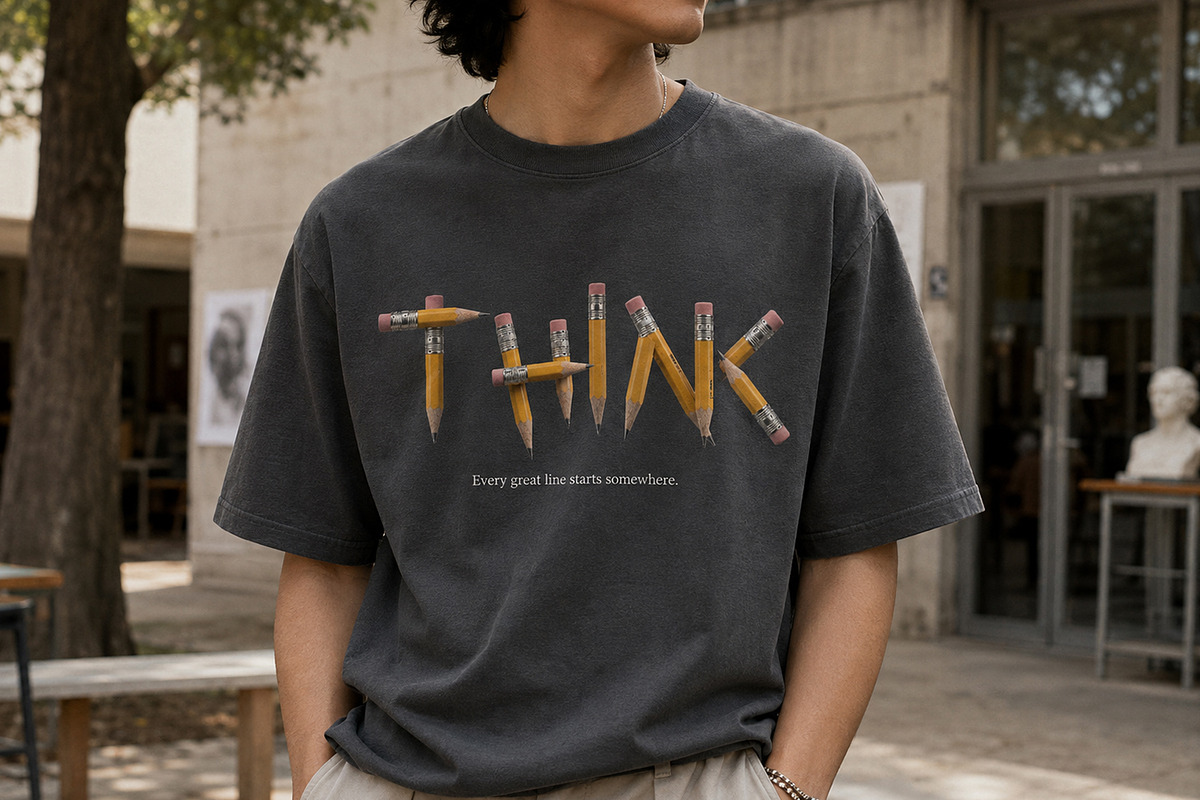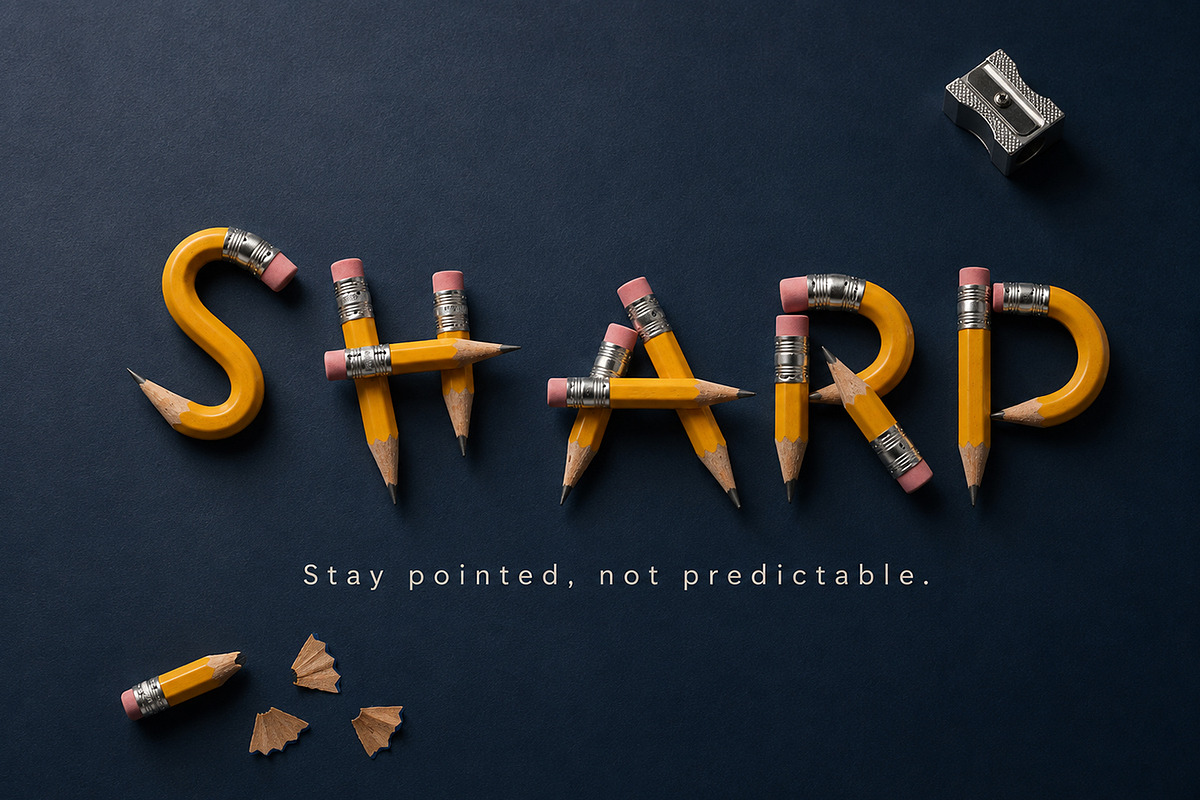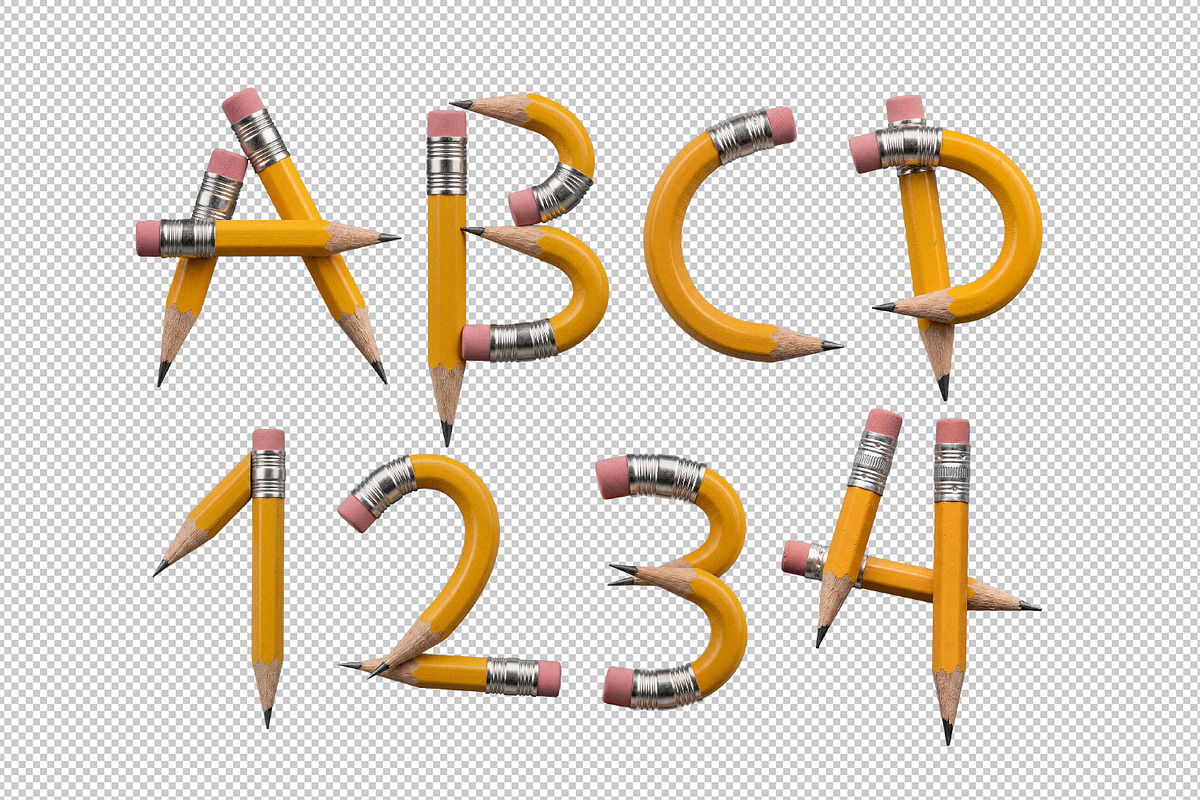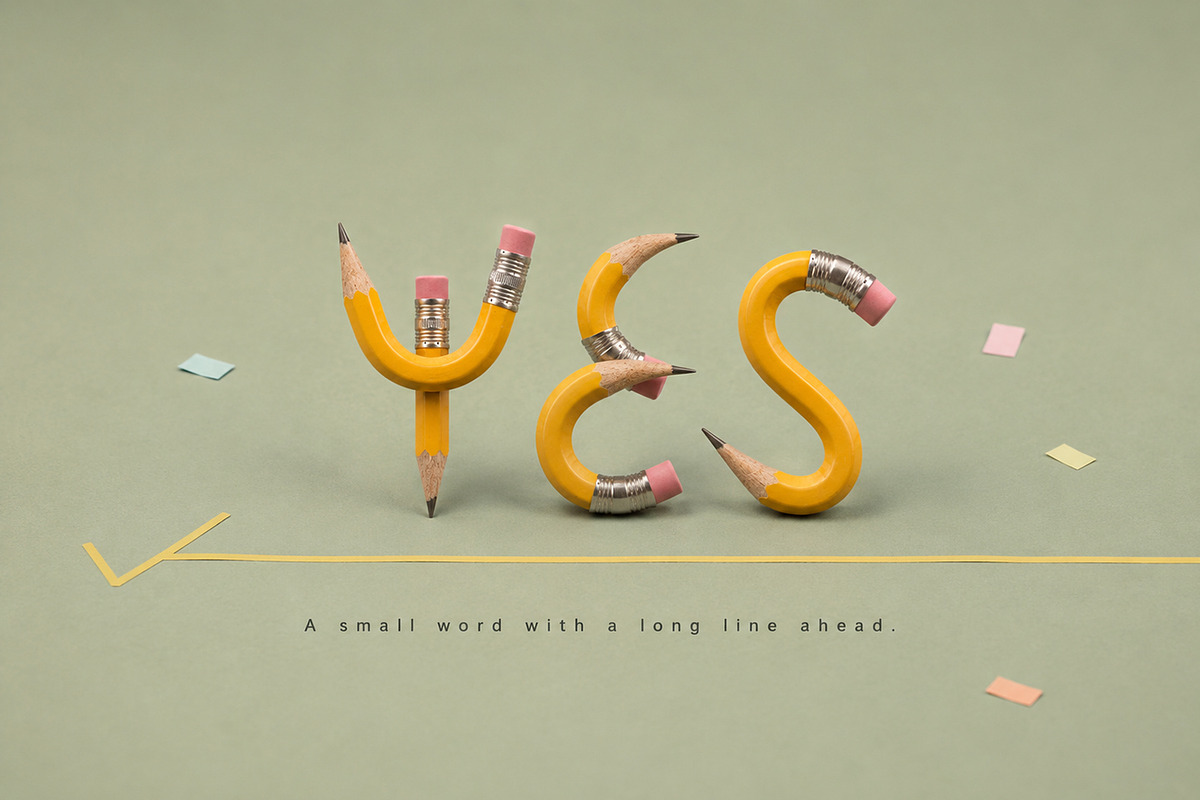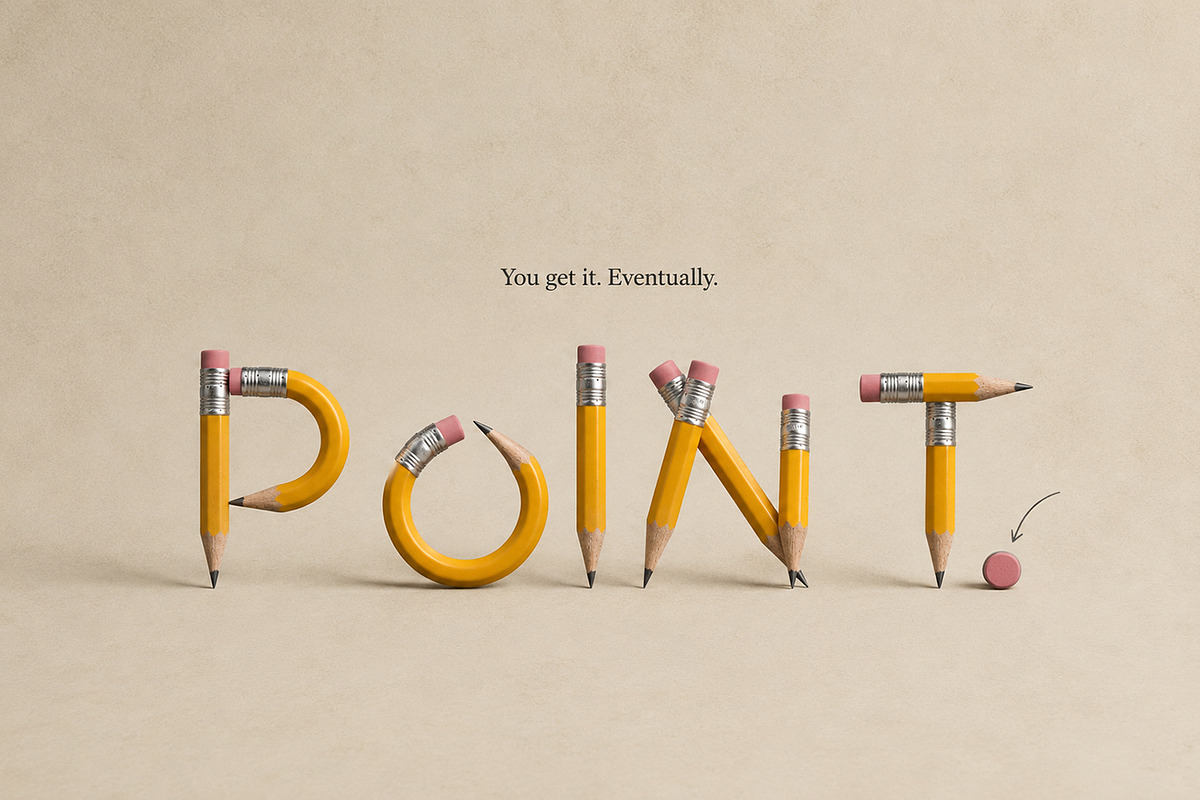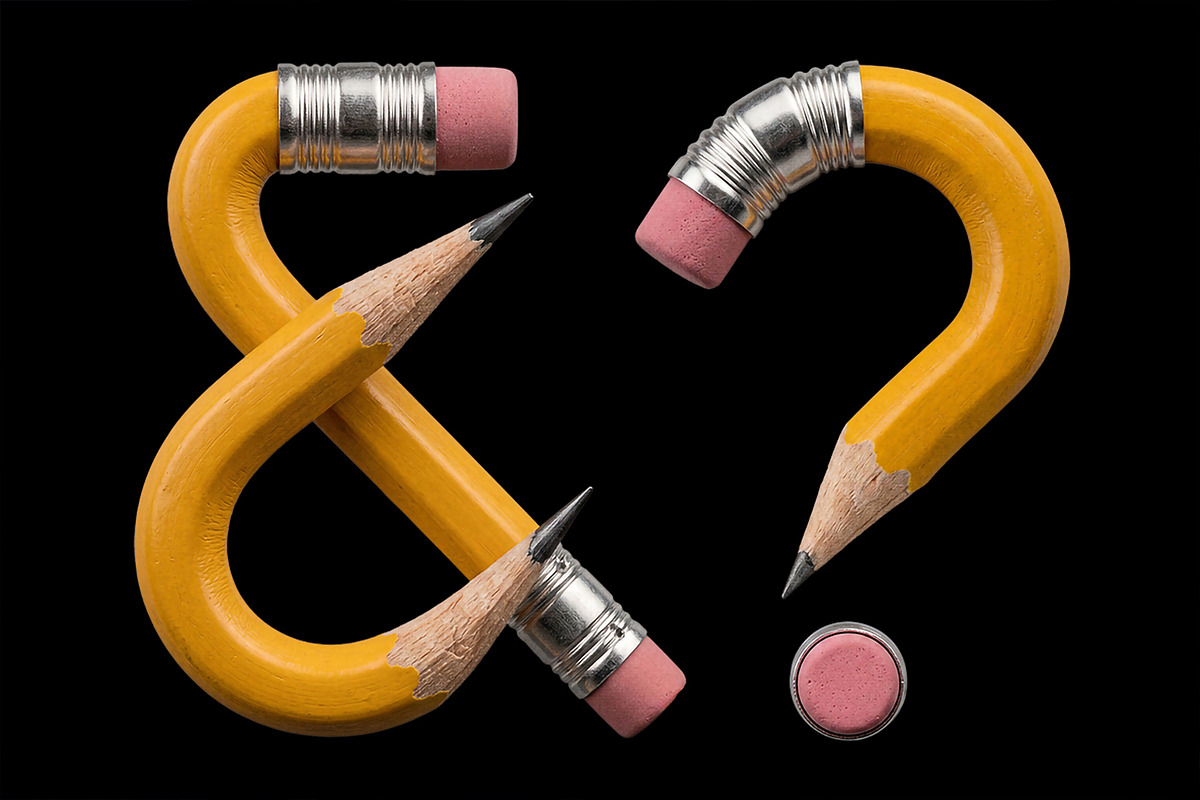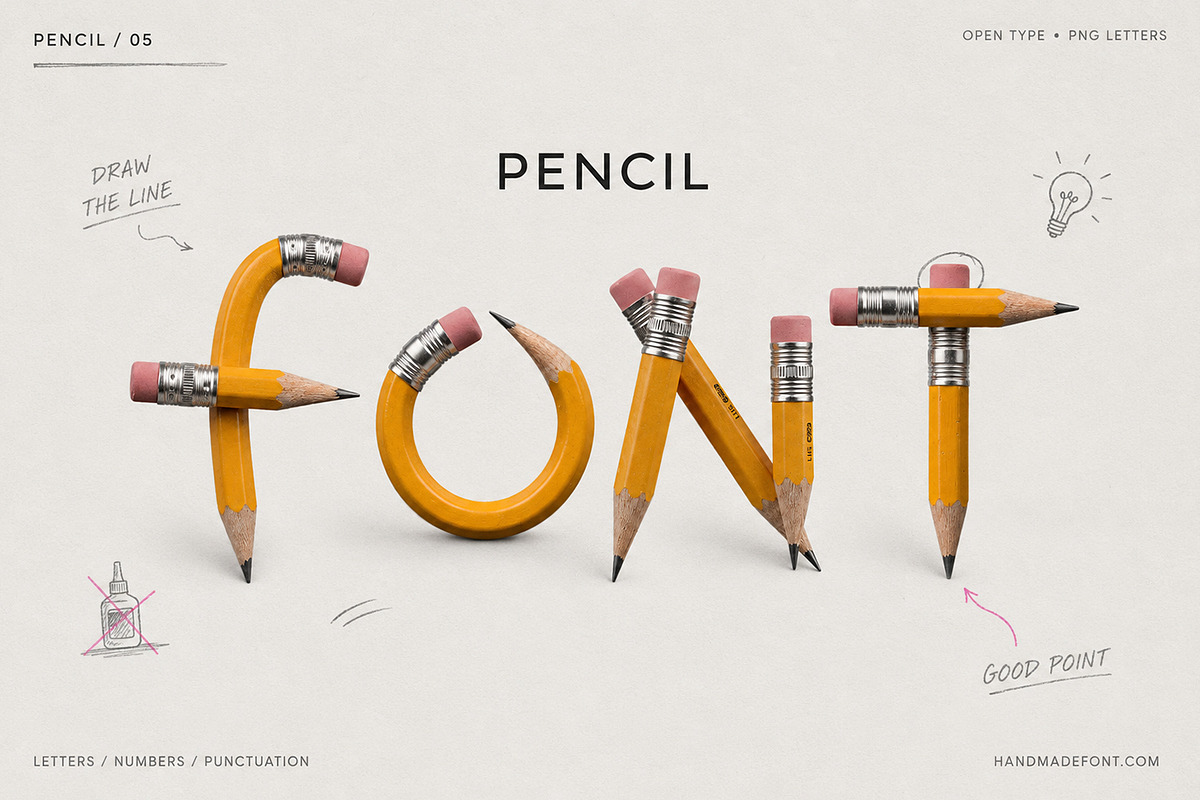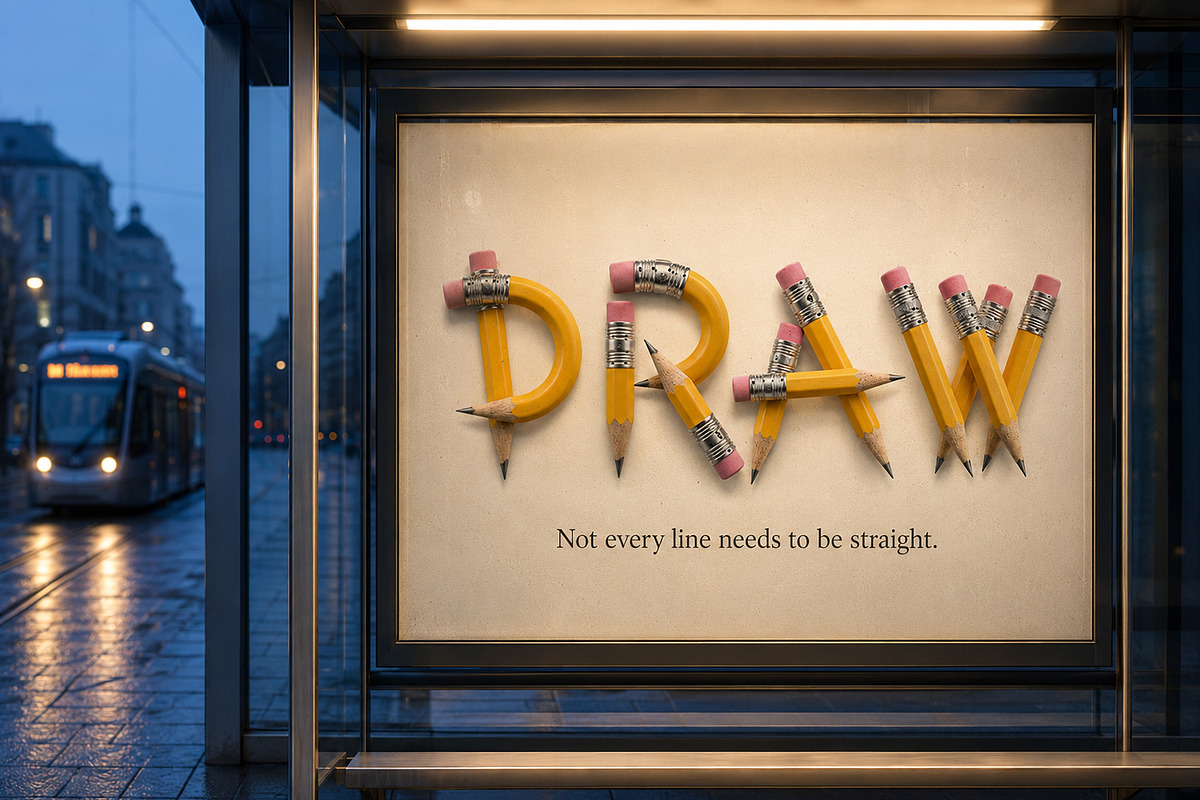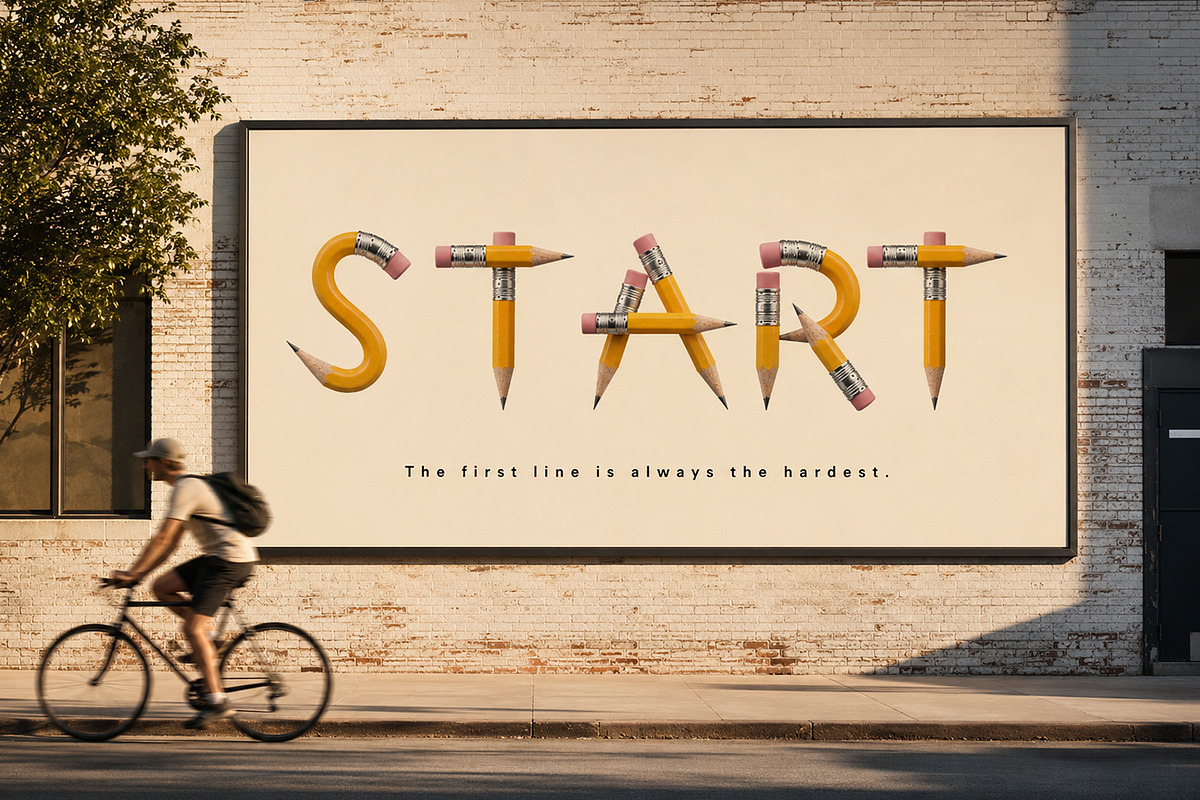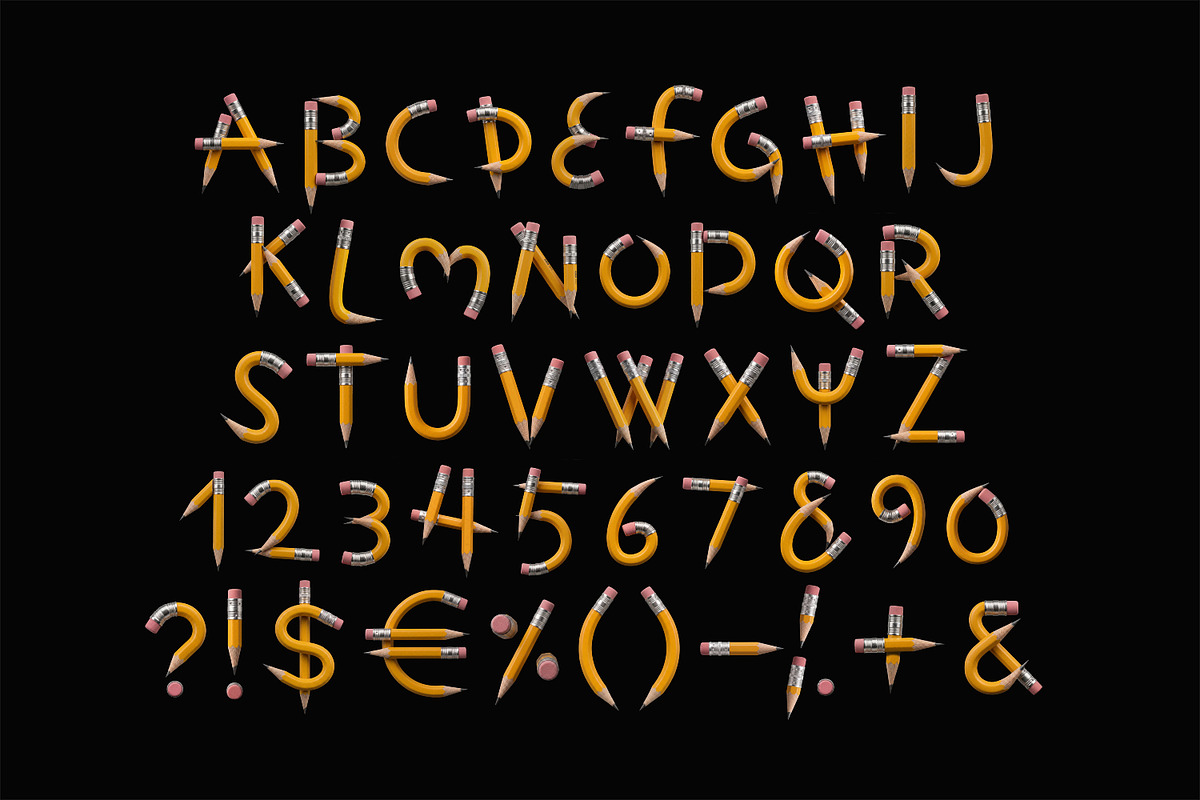
Pencil Font
Pencil Font turns an everyday drawing tool into a playful typographic alphabet full of character. Each letter is carefully constructed from realistic yellow pencils, complete with sharpened tips, pink erasers, metallic details, and unexpected curves. Its inventive three-dimensional style brings warmth, humor, and handmade energy to posters, school projects, branding, packaging, editorial layouts, social media, and creative advertising. The package includes an easy-to-use OTF font for quick typing, plus every individual letter as a high-resolution PNG file on a transparent background. Pencil Font is perfect for designers who want educational themes, bold visuals, and a genuinely memorable point of view.
Letters : A B C D E F G H I J K L M N O P Q R S T U V W X Y Z
Numbers : 0 1 2 3 4 5 6 7 8 9
Others : ! ? - . ' $ € % & #